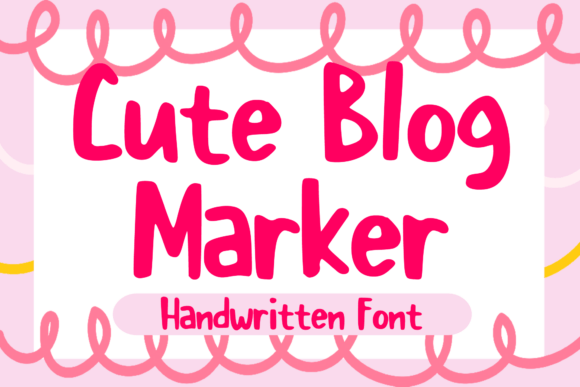
Cute Blog Marker Font: Elevate Your Designs with a Playful Touch
Are you looking for a font that can add a playful and casual touch to your designs? Look no further than the Cute Blog Marker font. This adorable comic marker font is perfect for designs that need a fun and carefree look. In this article, we’ll explore the features and benefits of the Cute Blog Marker font and how it can elevate your design projects to the next level.
What is Cute Blog Marker Font?
Cute Blog Marker is a digital font designed to mimic the look of comic markers. It’s a playful and whimsical font that’s perfect for designs that require a casual and friendly tone. The font features bold lines, bright colors, and a distinctive marker-like quality that makes it stand out from other fonts.
Key Features of Cute Blog Marker Font
- Playful and Whimsical Design: The Cute Blog Marker font has a unique and playful design that’s perfect for designs that require a fun and carefree look.
- Casual and Friendly Tone: The font’s marker-like quality gives it a casual and friendly tone that’s perfect for designs that need to connect with their audience.
- Bold Lines and Bright Colors: The font features bold lines and bright colors that make it stand out from other fonts.
- Highly Versatile: The Cute Blog Marker font can be used for a wide range of design projects, from stickers and t-shirt designs to logo designs and magazine covers.
Uses of Cute Blog Marker Font
The Cute Blog Marker font is highly versatile and can be used for a wide range of design projects. Here are some ideas to get you started:
- Stickers: The font’s playful design makes it perfect for stickers that need to grab attention.
- T-Shirt Designs: The font’s bold lines and bright colors make it perfect for t-shirt designs that need to make a statement.
- Logo Designs: The font’s unique design makes it perfect for logo designs that need to stand out from the crowd.
- Magazine or Book Covers: The font’s playful design makes it perfect for magazine or book covers that need to appeal to a younger audience.
- Comics and Cartoon Drawings: The font’s comic marker-like quality makes it perfect for comics and cartoon drawings.
- Daily Typing: The font’s playful design makes it perfect for daily typing, such as writing blog posts or social media updates.
Benefits of Using Cute Blog Marker Font
The Cute Blog Marker font offers a range of benefits for designers, including:
- Unique and Playful Design: The font’s unique design makes it stand out from other fonts and adds a playful touch to designs.
- Highly Versatile: The font can be used for a wide range of design projects, making it a great addition to any designer’s toolkit.
- Easy to Read: The font’s bold lines and bright colors make it easy to read, even at small sizes.
- Time-Saving: The font’s versatility and ease of use make it a time-saving solution for designers who need to create high-quality designs quickly.
The Cute Blog Marker font is a playful and versatile font that’s perfect for designs that need a casual and friendly tone. Its unique design, bold lines, and bright colors make it stand out from other fonts. With its wide range of uses and benefits, the Cute Blog Marker font is a great addition to any designer’s toolkit. Whether you’re designing stickers, t-shirt designs, logo designs, or magazine covers, this font is sure to elevate your designs to the next level.